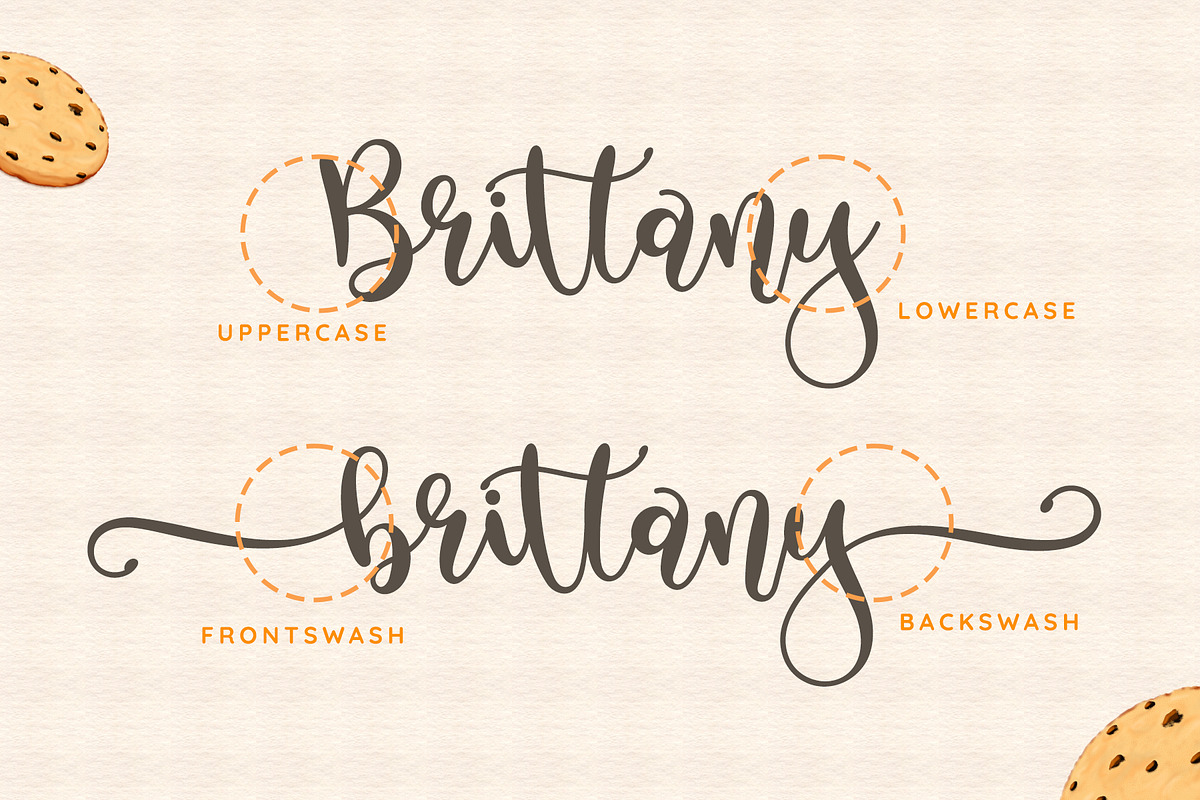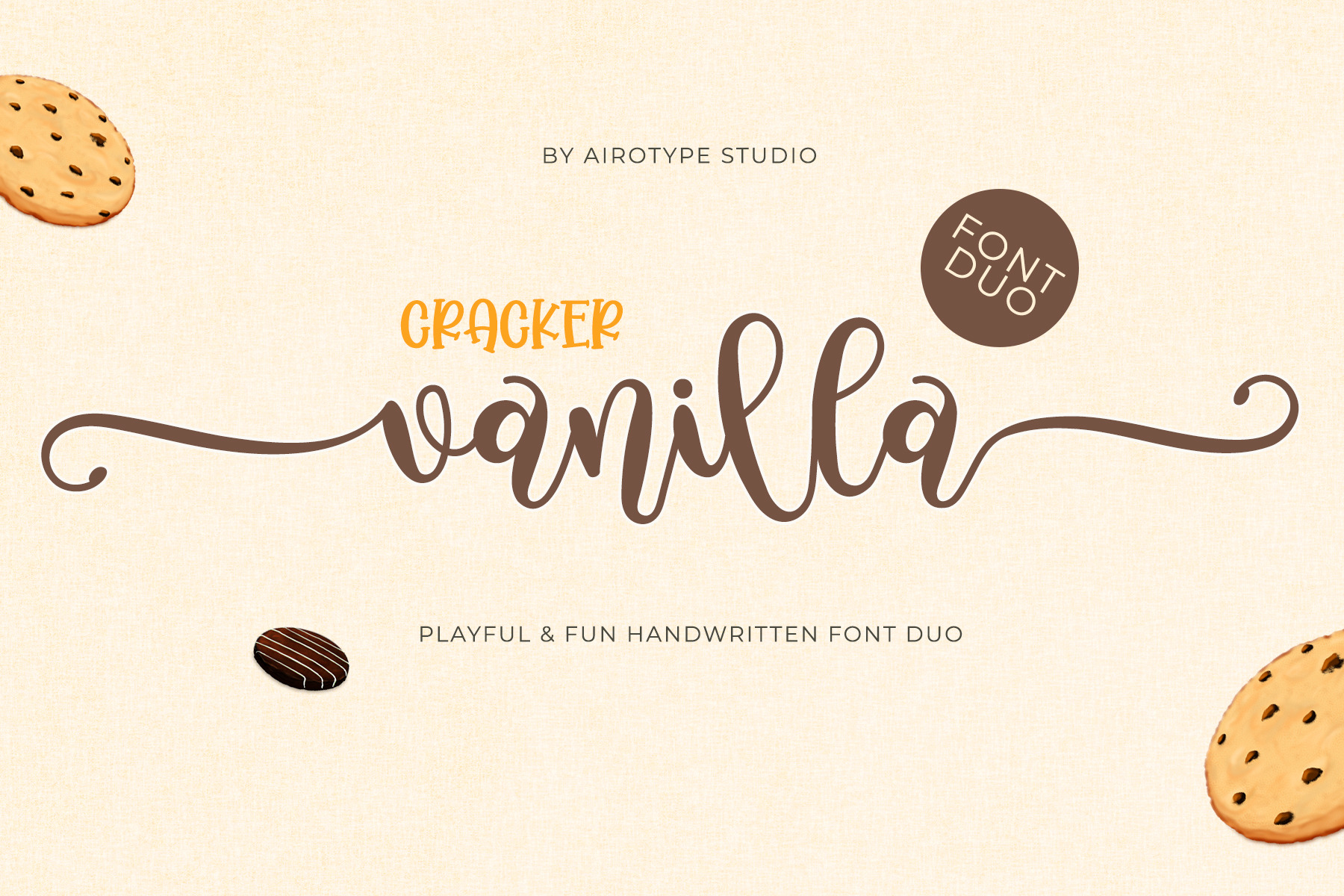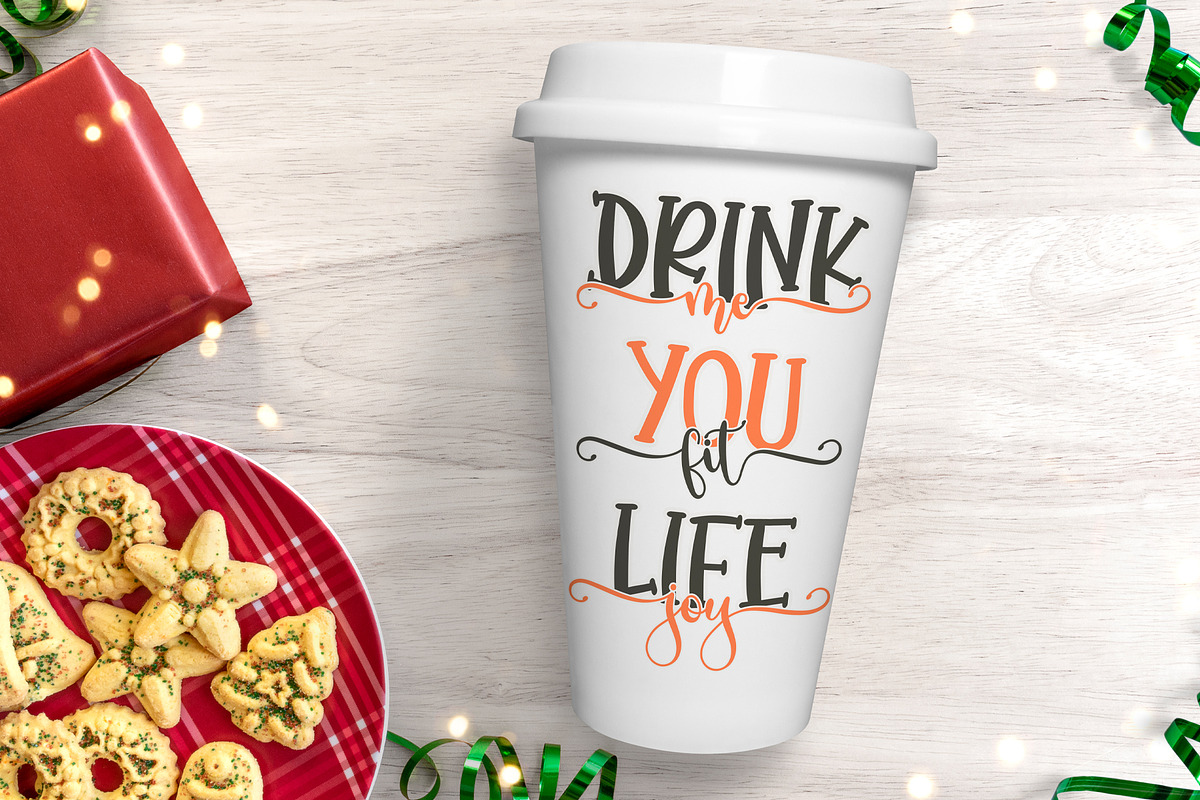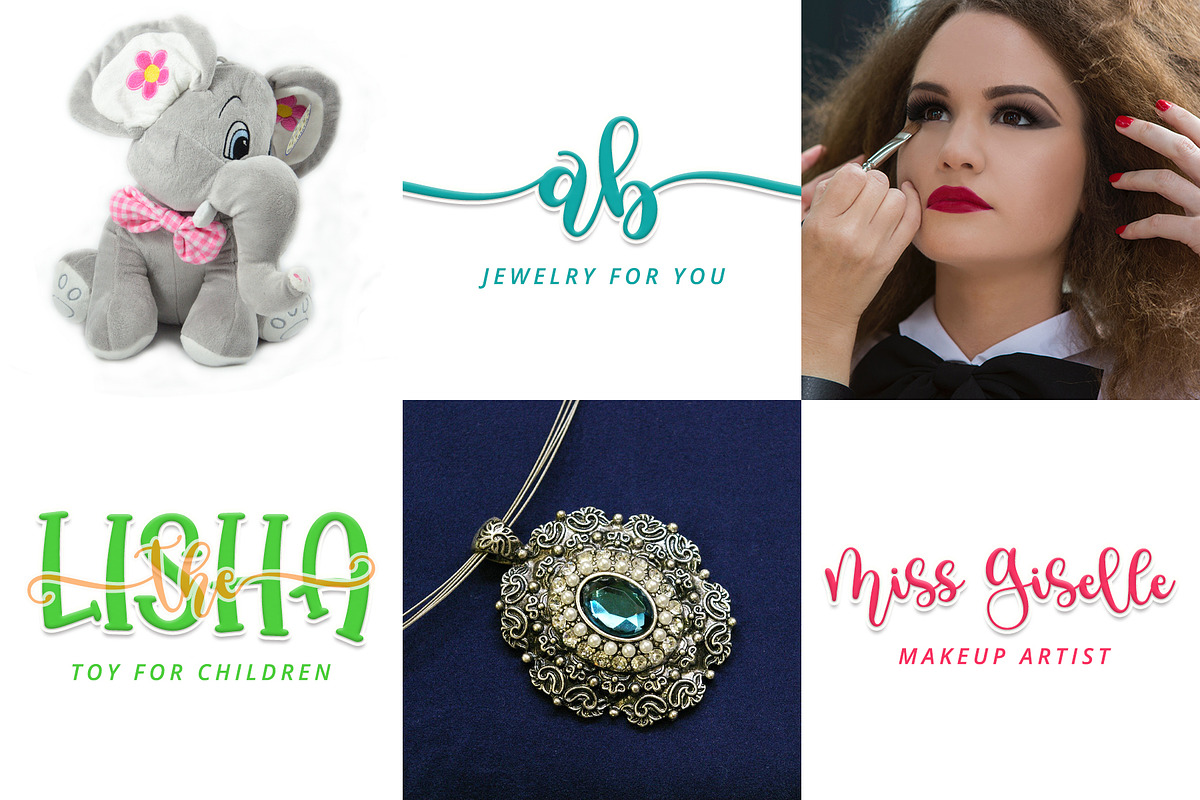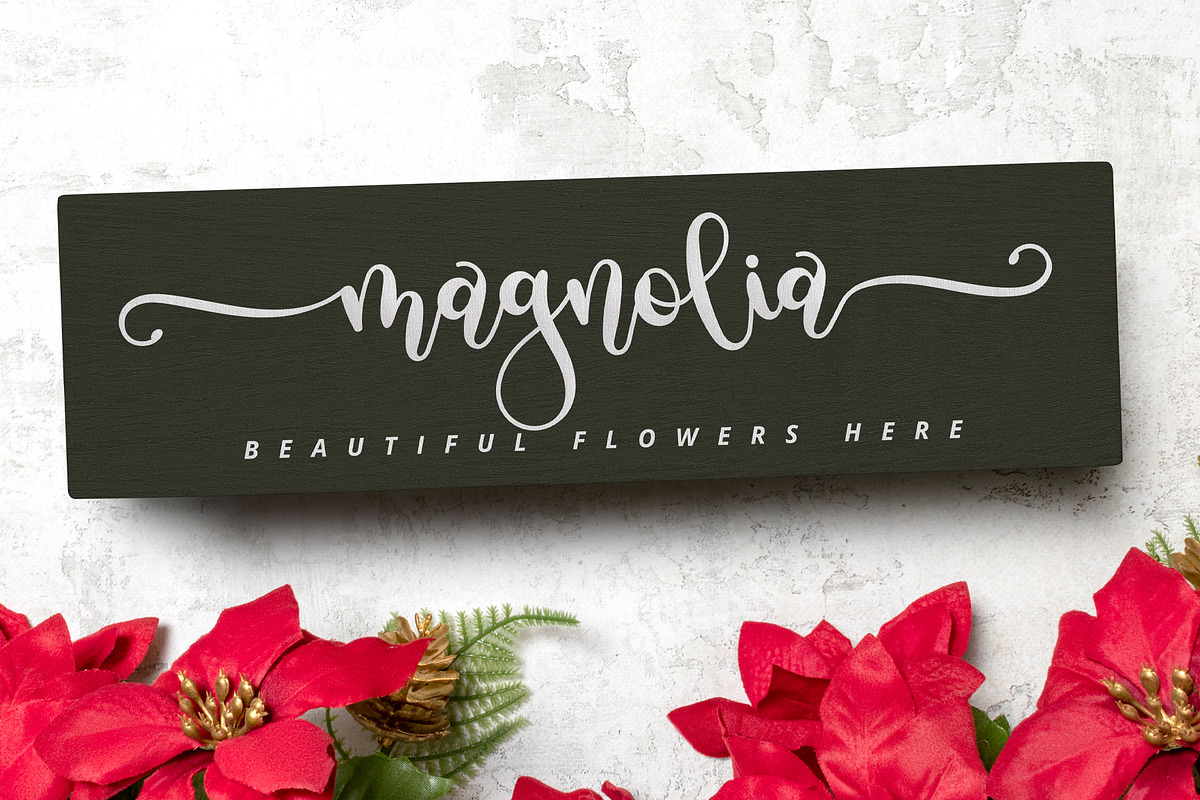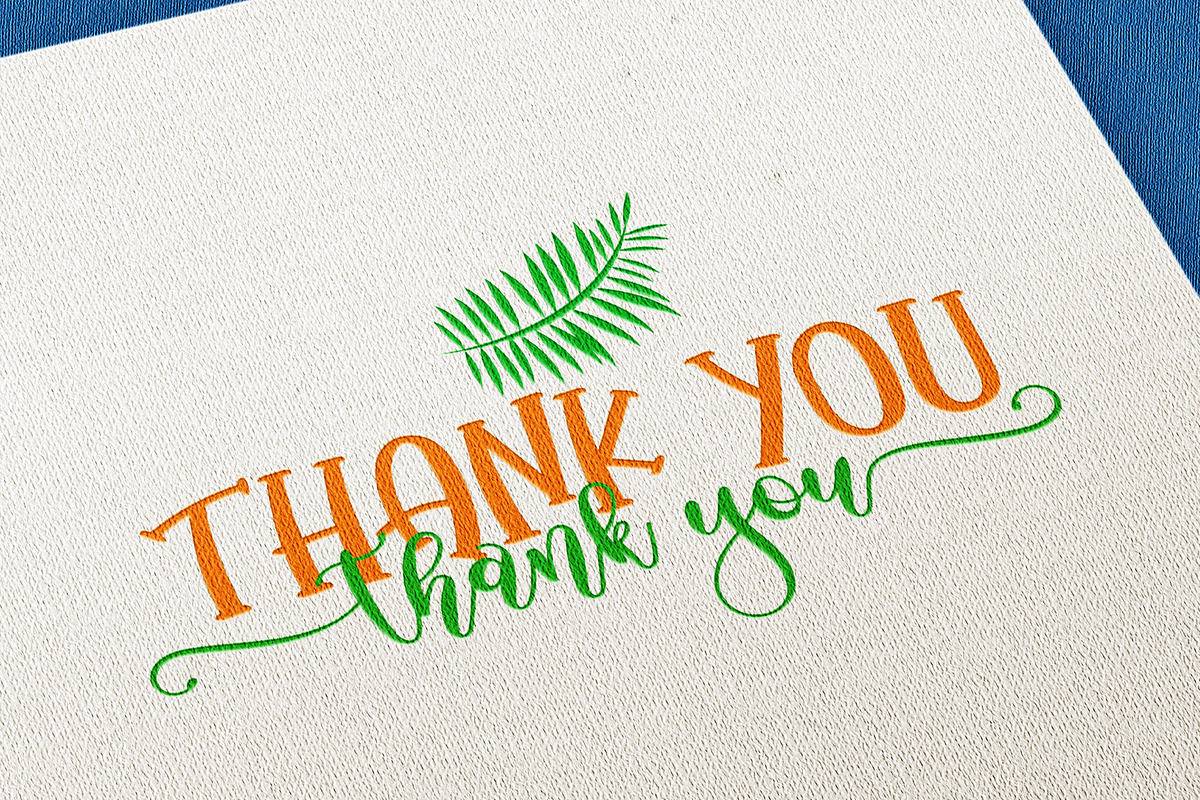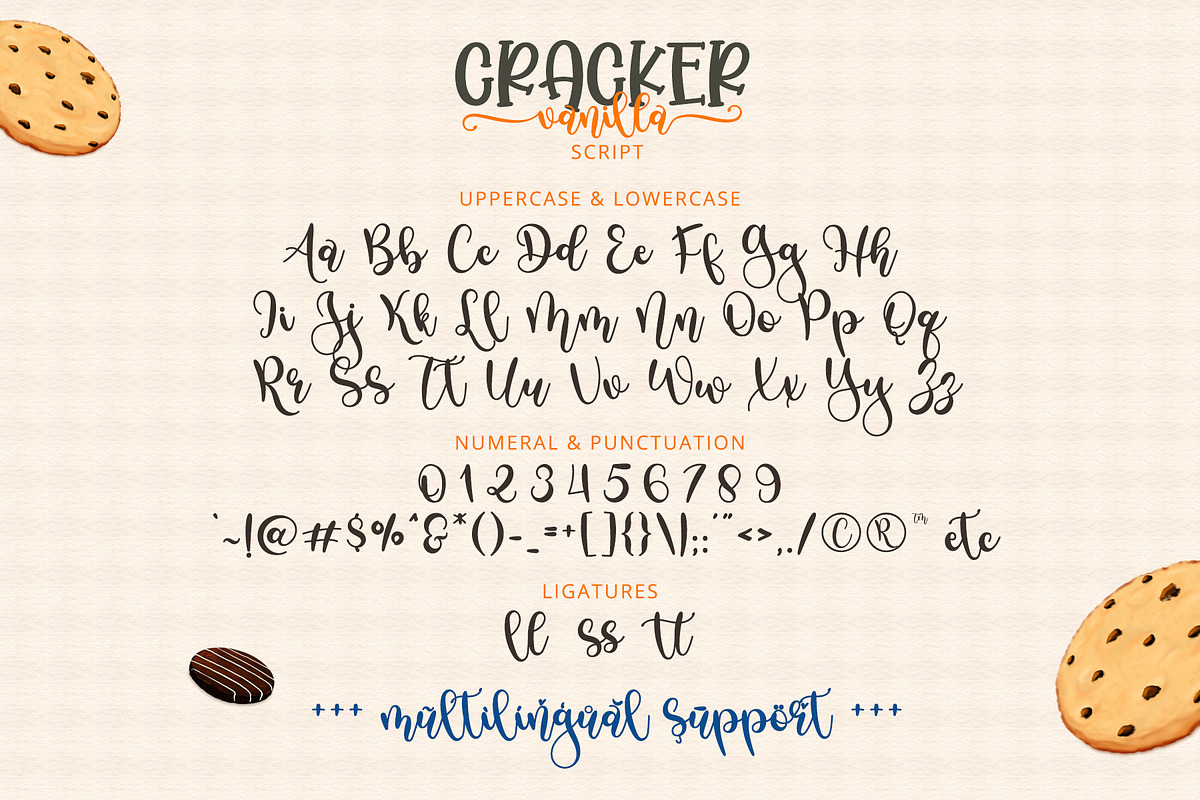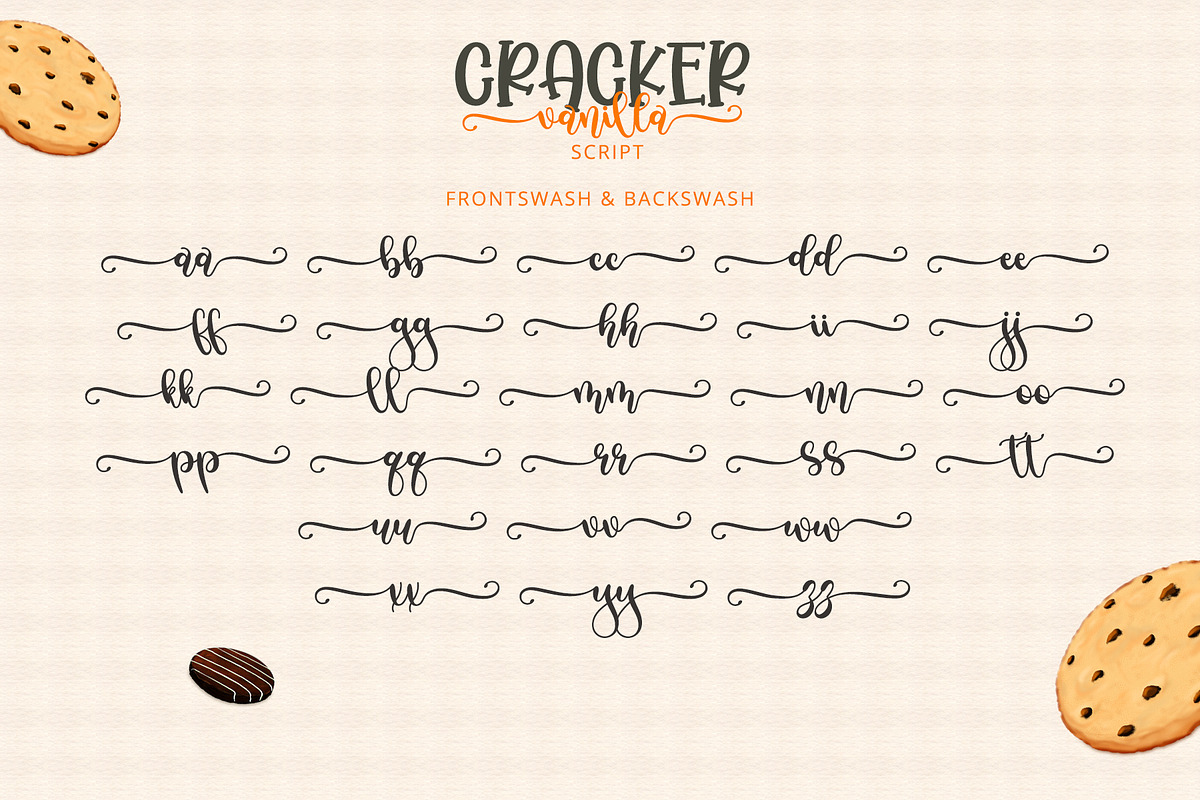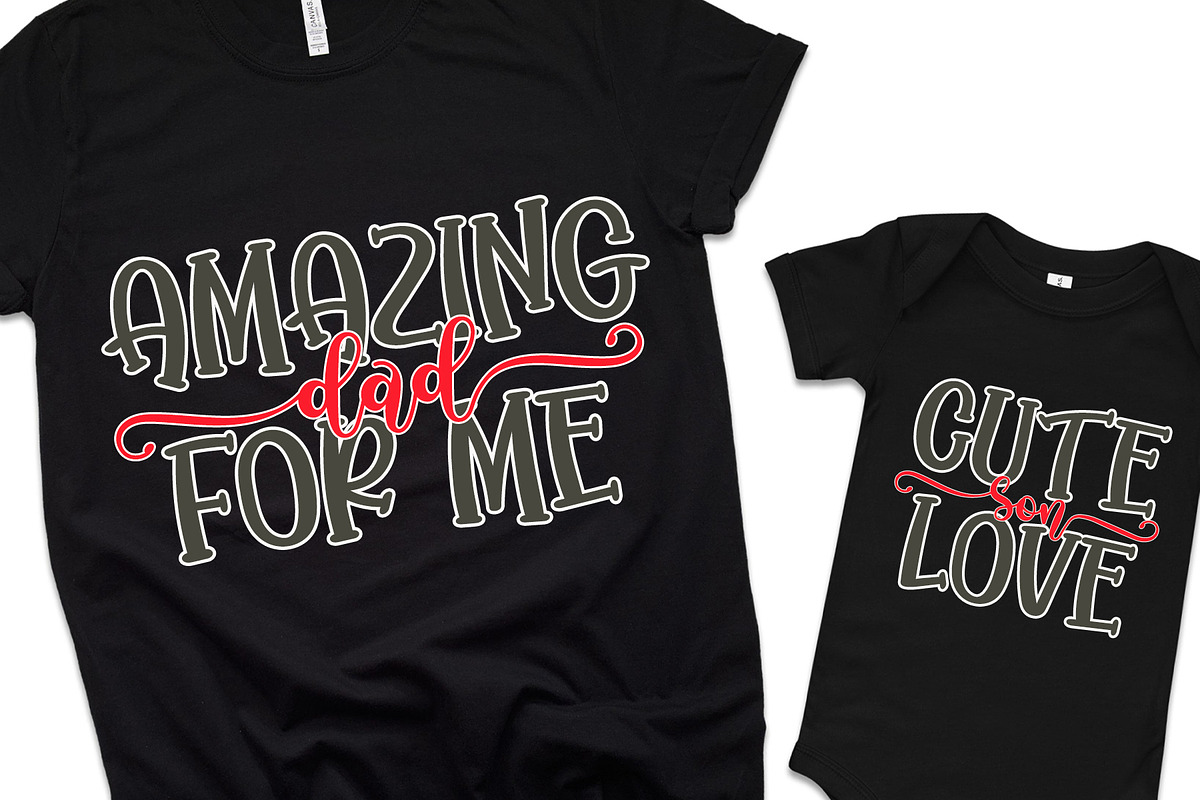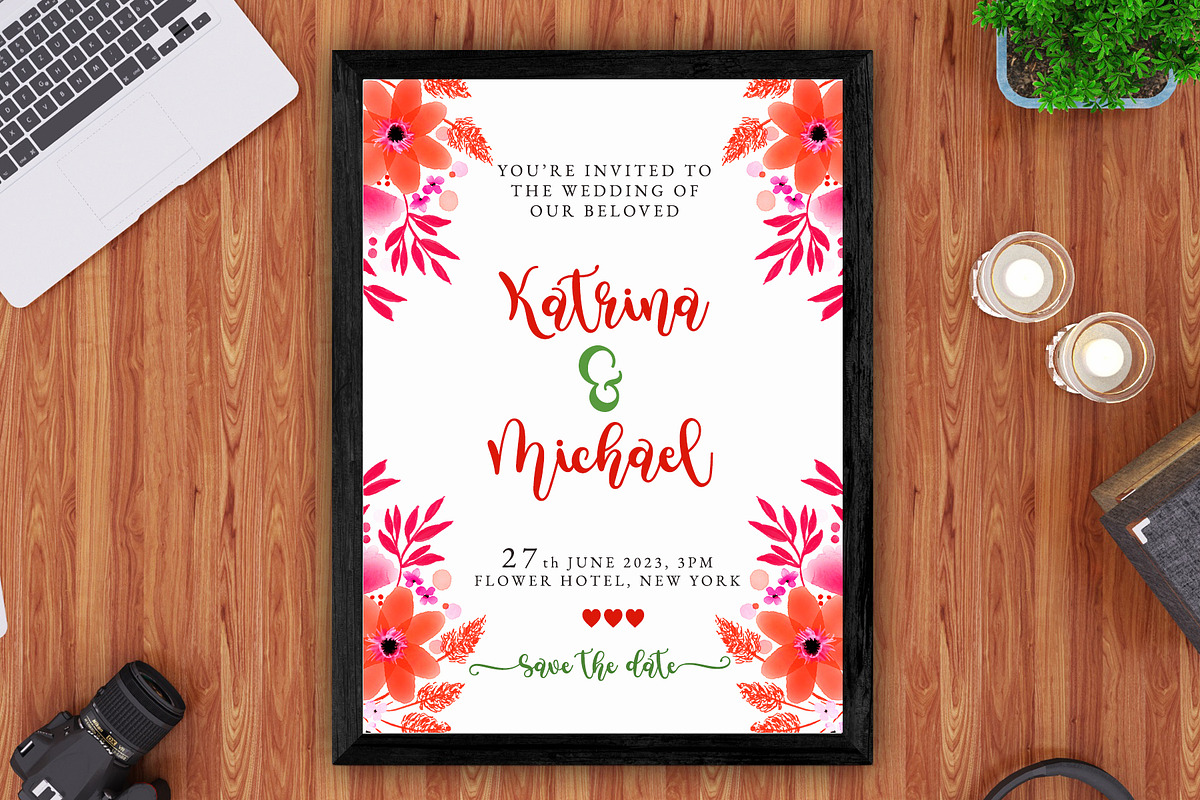
Cracker Vanilla - Cute Pretty Font
Cracker Vanilla is playful and fun handwritten font. This font is so perfect for any bright and cheerful design project, such as t-shirt mockup, greeting cards, sticker, logo, branding, and many others. Cracker Vanilla font duo has 2 styles, serif and script. The script one has swash in front and back to make it more stunning.
- Uppercase and Lowercase (include tail swash for script font)
- Most Multilingual Accent